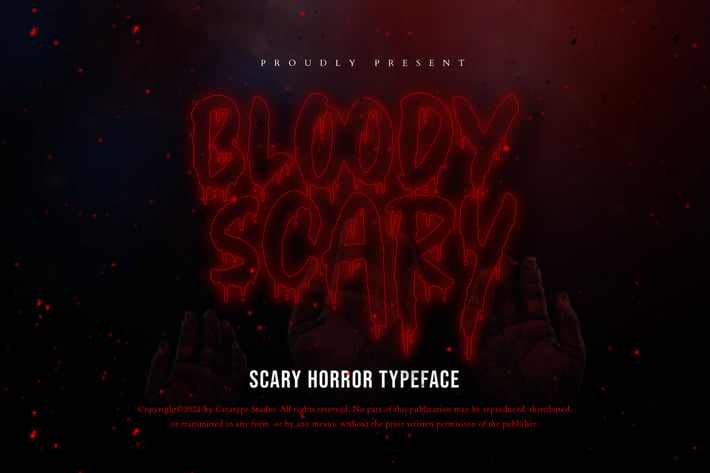
Bloody Scary Horror Halloween Font
Bloody Scary is a scary horror typeface especially created by experts, resulting in this amazing font. This font is impressive, with its natural-looking brushed appearance making it a perfect fit for your large projects.